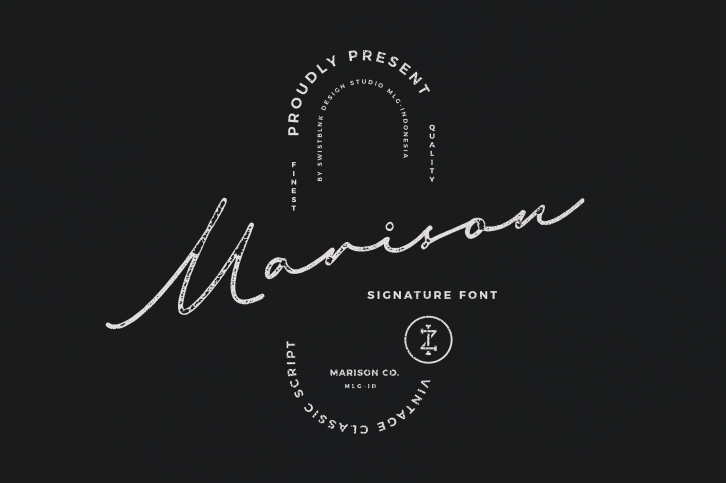
Marison Type Family - Perfectly well type pairing for an authentic Modern Vintage look
- Marison Brieny Script Regular
- Marison Brieny Script Vintage
- Marison Brieny Sans Regular
- Marison Brieny Sans Round
- Marison Brieny Sans Vintage
Marison Type Family :